Font Generator Logo: A Practical Branding Guide
Explore how font generator logos use automated typography to craft memorable wordmarks and emblems. This guide covers design principles, tool workflows, licensing, and practical tips for branding success.
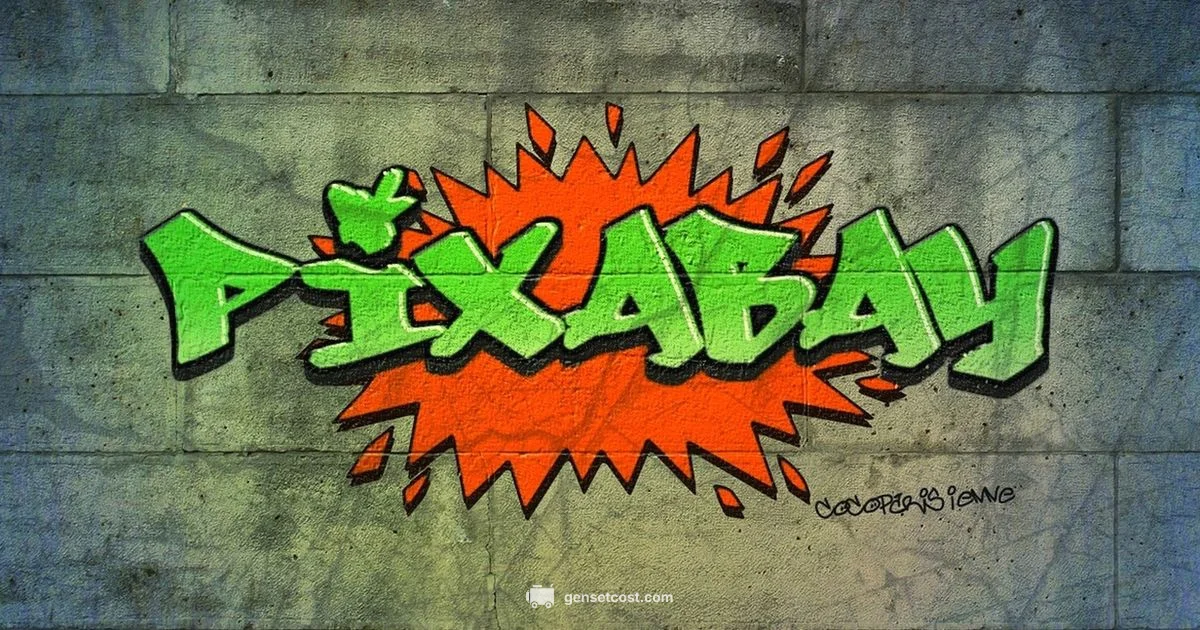
Font generator logo is a type of logo design created using automated typography tools that blend fonts and graphics to produce a unique wordmark or emblem.
What is a font generator logo?
A font generator logo is a design concept that uses automated typography tools to blend fonts with graphical elements and produce a distinct wordmark or emblem. It is not a single font, but a composition that tests how different typefaces pair with shapes, icons, and layout. Designers often start with a name or brand tag and apply rules for contrast, alignment, and legibility to generate several options quickly. The goal is to capture brand personality while ensuring the logo scales from a tiny app icon to a billboard. While traditional logos rely on handcrafted kerning and bespoke typography, a font generator logo leverages algorithms to propose varied type blends, color suggestions, and spacing patterns, providing a strong starting point for refinement. For branding professionals, this approach can help explore dozens of directions in a short time, then zero in on a few strong concepts for polishing. In practice, you should treat the initial outputs as drafts that require human judgment on legibility, character, and trademark feasibility. When used thoughtfully, a font generator logo accelerates ideation without sacrificing brand clarity.
From a practical standpoint, it is important to define the core brand attributes—what the logo should communicate, the desired mood, and the contexts in which it will appear. The tool then tests typography pairings, visual weights, and alignment rules that reinforce those attributes. Expect some outputs to feel generic; the real value is identifying a few directionally strong concepts that can be refined by a human designer. Licensing and style consistency across uses should be considered early to avoid mismatches when you scale the logo for packaging, digital interfaces, and outdoor signage.
How font generator logos work
Font generator logos rely on a mix of typography libraries, layout rules, and sometimes AI-assisted patterns to generate logo concepts. Most tools let you input a brand name, optional tagline, and a set of preferences such as type family (serif, sans, display), weight, and letter spacing. The generator then combines these inputs with prebuilt templates, icons, and color palettes to create multiple variations. The core ideas it explores are font harmony, legibility at different sizes, and the balance between text and graphic elements. Designers use the outputs as starting points, iterating on kerning, spacing, and color to achieve a refined result. Licensing is a critical factor; many tools bundle fonts under specific terms, so check usage rights before exporting final artwork. For marketers and homeowners evaluating branding options, these tools offer rapid prototyping without the time and cost of hiring a full studio. A thoughtful use of a font generator logo can cut ideation cycles, enabling faster decision-making while preserving brand voice and visual identity.
When to use a font generator logo
There are several scenarios where a font generator logo shines. Early-stage startups may need a fast, affordable way to explore multiple directions before committing to a design strategy. Marketing teams can test different typographic personalities aligned with brand stories, helping stakeholders visualize ideas during approval rounds. For property managers or homeowners who want to prototype a visual identity for a new service line or amenity branding, these tools offer a practical way to generate consistent wordmarks that scale across digital and print. However, a font generator logo should not be the final deliverable for a long-term brand. It is best used as a structured ideation phase that informs a professional design brief. Recognize that automated outputs may require human judgment to ensure cultural sensitivity, readability across languages, and trademark feasibility. When used with clear brand guardrails, the approach accelerates the branding cycle without compromising quality.
Key design considerations for font generator logos
Effective font generator logos balance typography and imagery with legibility and scalability. Start by defining the brand personality—bold and modern, friendly and approachable, or premium and traditional—and translate that into font choices. Consider a few anchor fonts that work well in both display and small sizes, then pair them with a simple graphic or emblem to avoid visual clutter. Color theory matters: high-contrast color combinations improve readability on screens and signage, while a restrained palette preserves versatility. Licensing is non negotiable; ensure the font licenses cover commercial use and any derivative work. Test the logo at various sizes, from favicon to storefront signage, and across media such as social profiles, websites, and packaging. Finally, document a consistent usage guide that specifies minimum clear space, color versions, and preferred layouts to preserve brand integrity as you scale.
Comparing DIY font generator logos vs professional design
DIY font generator logos offer speed and cost savings for early ideation, especially when time is tight or budgets are limited. They are excellent for prototyping multiple directions quickly, enabling teams to gather feedback before investing in a full design sprint. Professional logo design, by contrast, delivers bespoke typography, nuanced kerning, and trademark-ready vector assets tailored to the brand. It often results in a unique identity with long-term resilience and better protection against legal risks. The most prudent path is to use a generator tool for exploration and then commission a designer to refine a select few concepts into production-ready logos with consistent typography across platforms. For branding programs, consider a staged approach: generate ideas, shortlist promising options, then invest in a professional finish with clear licensing terms.
Step by step guide to using a font generator logo tool
Begin by defining the brand attributes such as mood, audience, and core values. Choose a generator tool that supports font pairing, layout templates, and export options. Input the brand name and optional tagline, select preferred type families, and adjust weight, kerning, and baseline alignment. Generate several variations and rank them by readability, balance, and alignment with brand voice. Export the top candidates in scalable vector formats and test them at multiple sizes and on different backgrounds. Finally, refine the most promising options with a designer, focusing on pixel-perfect kerning, color proofs, and a solid brand usage guide. Keep licensing considerations front and center to ensure the final logo can be used across all intended channels without constraint.
Common pitfalls and how to avoid them
One common pitfall is overloading the logo with too many font styles or decorative elements, which harms legibility. Another is choosing fonts that look similar but convey different personalities, creating brand confusion. Ensure you test against different languages and letterforms, as some fonts have diacritic issues or kerning quirks. Avoid relying solely on automated outputs without human review; set clear criteria for evaluation and involve stakeholders in the decision. Finally, secure proper licenses for all fonts and graphic assets used in the generator outputs to prevent future legal complications. With mindful usage, font generator logos can be a productive first step toward a strong, scalable brand identity.
Real world examples and best practices
A fictional property management brand used a font generator logo to prototype a modern, legible identity across their resident portal and signage. The team iterated on a clean sans serif paired with a minimalist icon, then refined kerning and color for accessibility. The result was a versatile logo set that scaled from app icons to building banners while maintaining brand personality. Their best practice was to use the generator outputs to guide a concise design brief for a professional designer, ensuring the final identity met legal and accessibility standards. Another example shows a startup testing multiple font pairings to align with an eco-friendly narrative. By combining swift online generation with expert review, they achieved a logo that felt authentic and distinctive without stretching the brand budget.
You can swap fonts later, but check accessibility and brand consistency.
Key Takeaways
- Define brand goals before generating logos
- Use generators for rapid ideation, not final delivery
- Check font licenses and trademark feasibility
- Test legibility across sizes and media
- Involve a designer for refinement after initial ideas
- Document usage guidelines early to maintain consistency